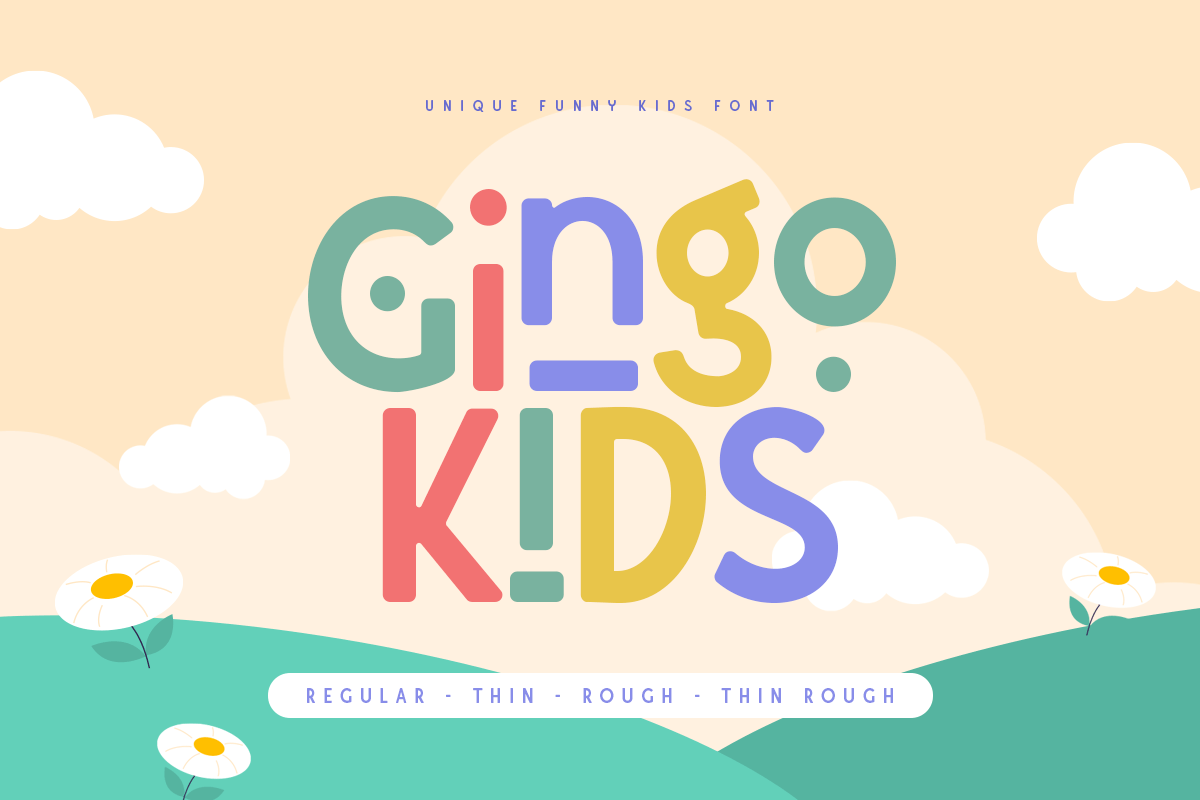
Gingo Kids
-Unique Funny Kids Font
Gingo Kids is a fun and playful cute typeface. It is perfect for logotype, flyer, greeting cards, packaging, book cover, printed quotes, headings, etc.
• Ready with Regular, Thin, Regular Rough, and Thin Rough